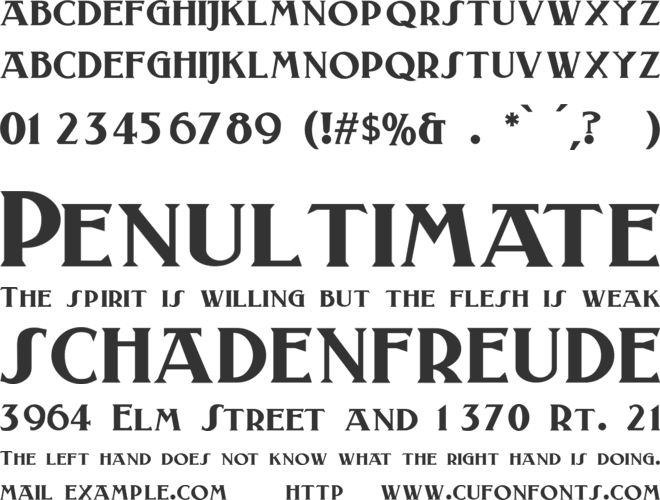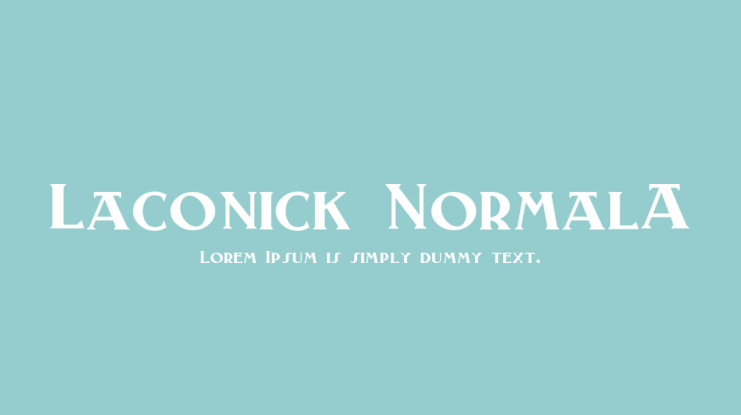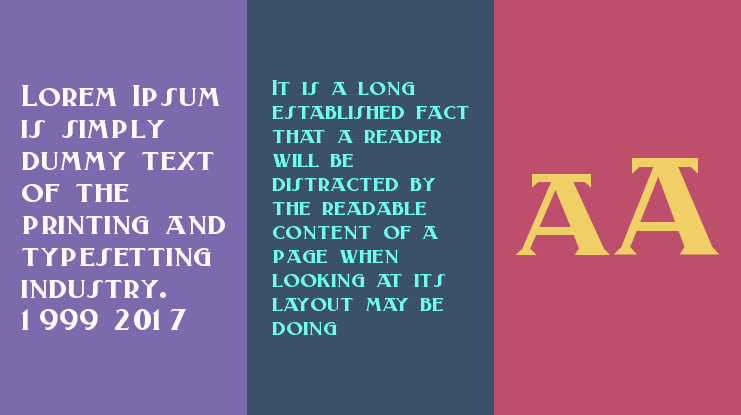
Laconick-NormalA Font
Kinda Middle Ages, kinda William Morris --- a semibold font with strongs serifs and a uniform text color. Saw it on an old bookcover, liked it, recreated it.